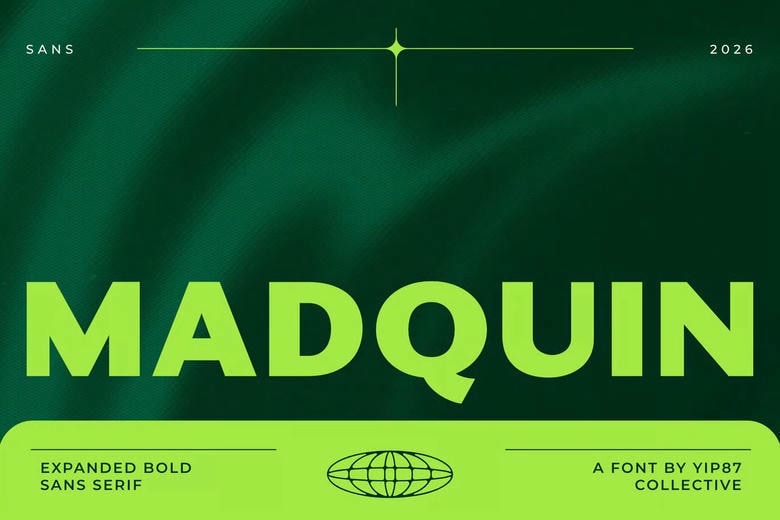
Madquin Font
Madquin is Clean Minimalist Modern Expanded Bold Sans Serif typeface that is targeted at logo, branding, header / headline, game, music, technology, urban, college, race car and sport branding. Madquin has effective and classic logos and branding materials. Madquin Font will help you achieve long-term impression.
Madquin Sans Serif Font